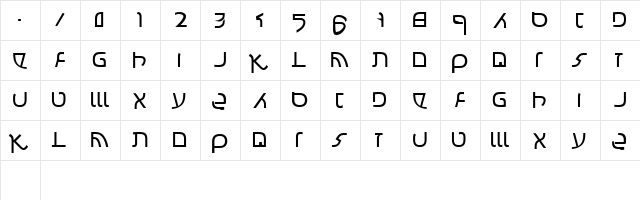
Confusion Normal Font Preview
Confusion Normal
Confusion Normal Font Details
Design Context for Confusion Typeface
Confusion is a composed and adaptable typeface that performs quietly and consistently across a wide range of design contexts.